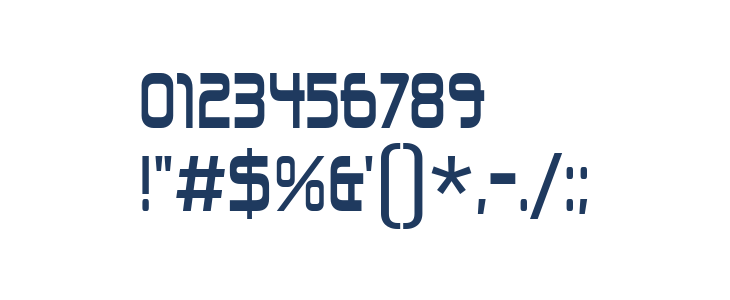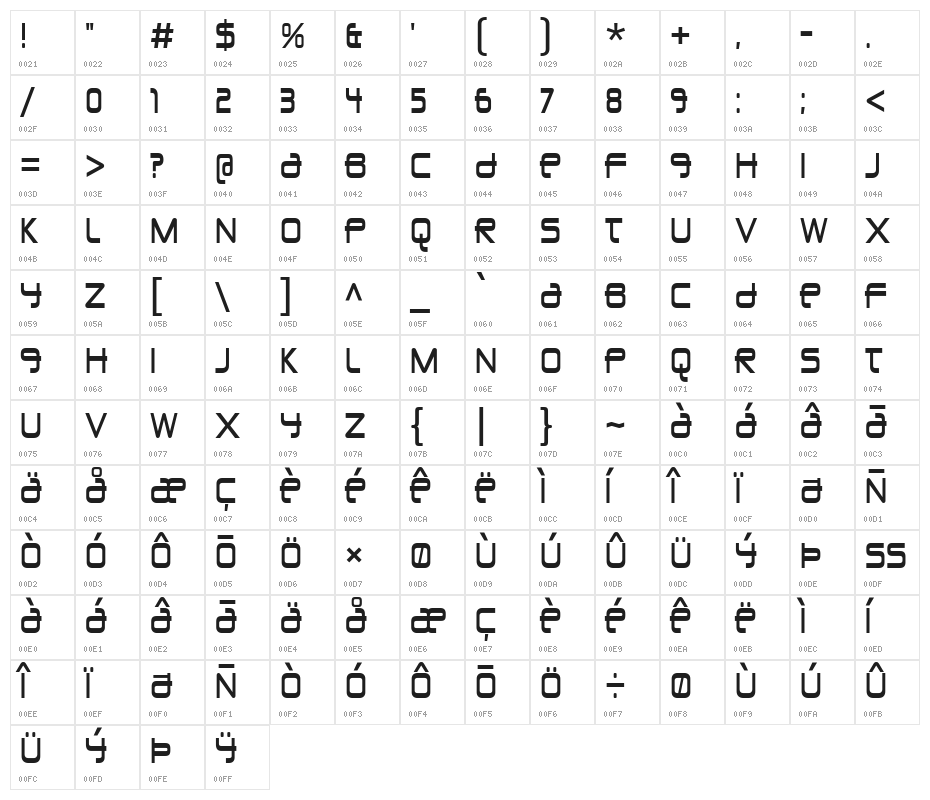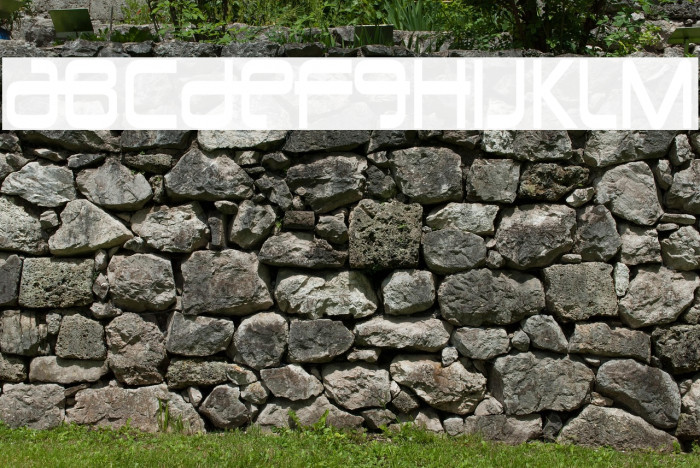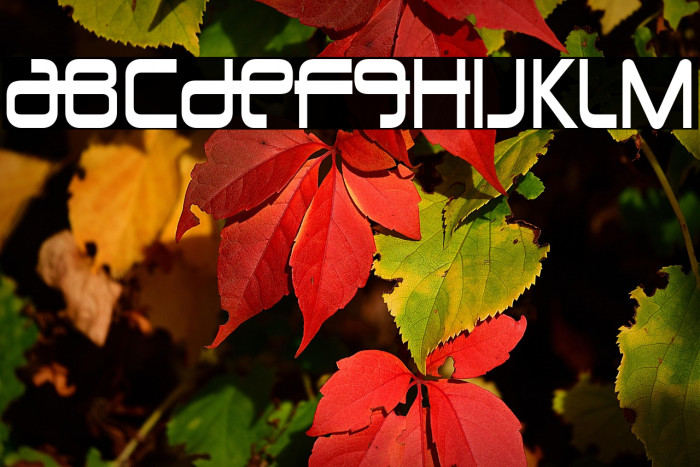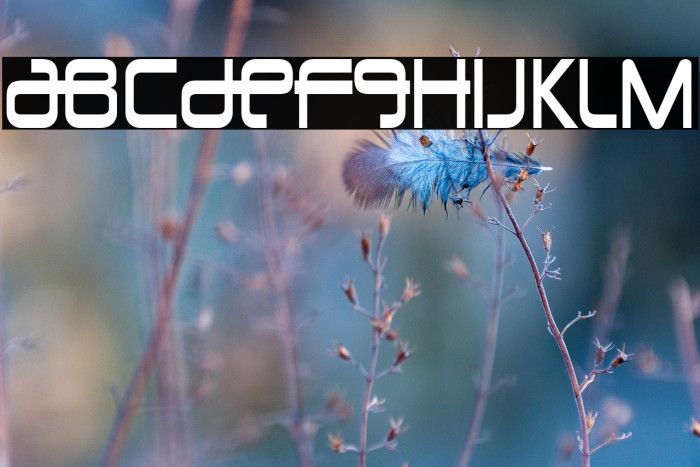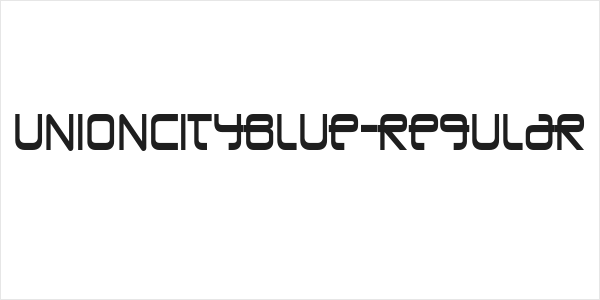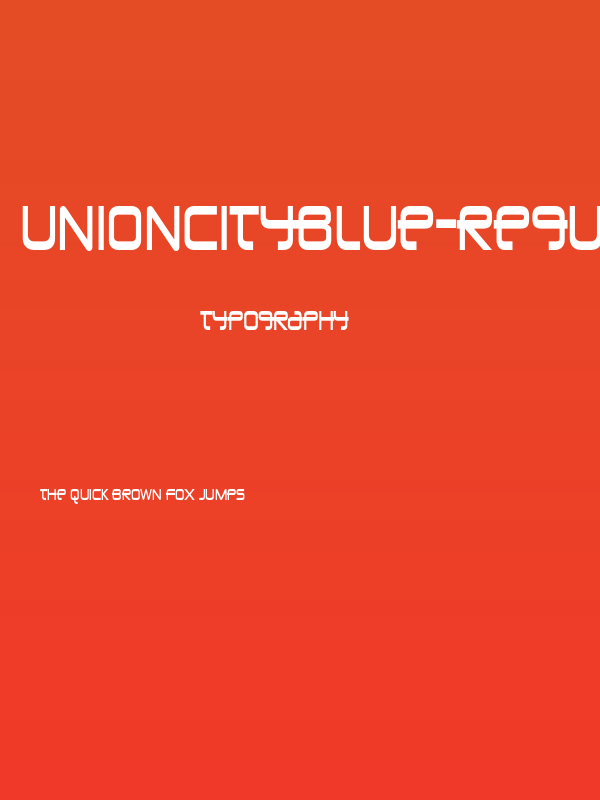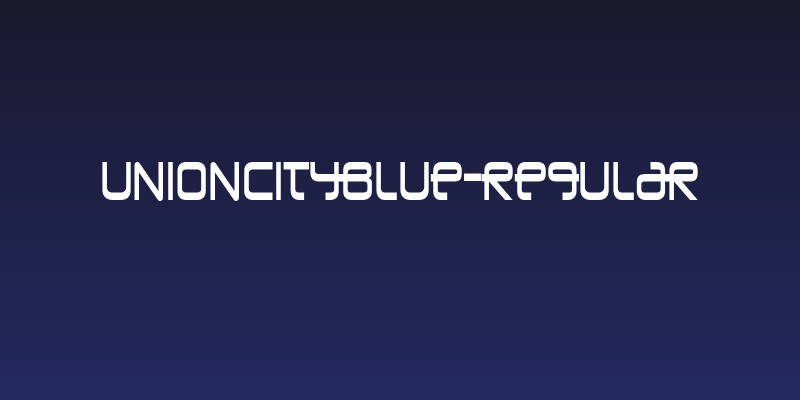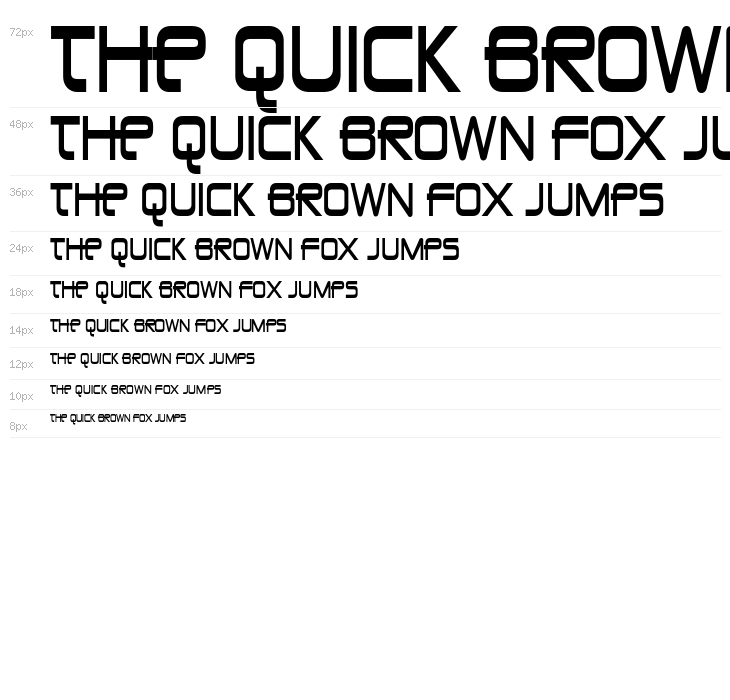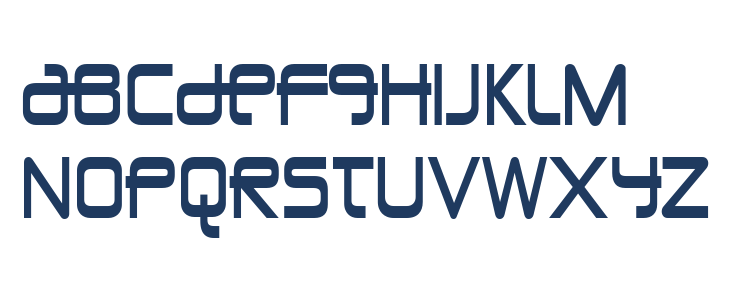
UnionCityBlue-Regular Font
UnionCityBlue-Regular Description
This font features a modern and geometric design with a distinct futuristic appeal. The characters are constructed with clean, straight lines and rounded edges, giving it a sleek and contemporary look. The uppercase and lowercase letters maintain a consistent height, creating a uniform appearance. The numerals and special characters follow the same design principles, ensuring a cohesive style across all elements. The font's structure is bold and impactful, making it suitable for attention-grabbing designs. Its unique style is ideal for projects that require a modern and innovative touch.
| Use Case | Headlines, Logos, Digital interfaces |
| Proposed Projects | Ideal for tech branding, futuristic posters, digital interfaces, and modern advertising. |